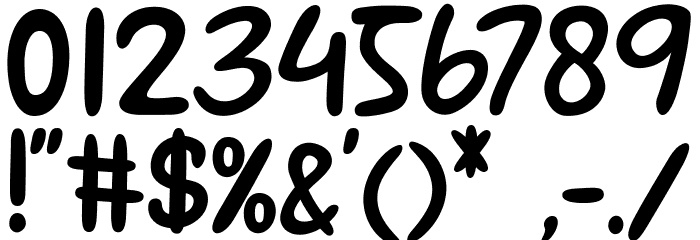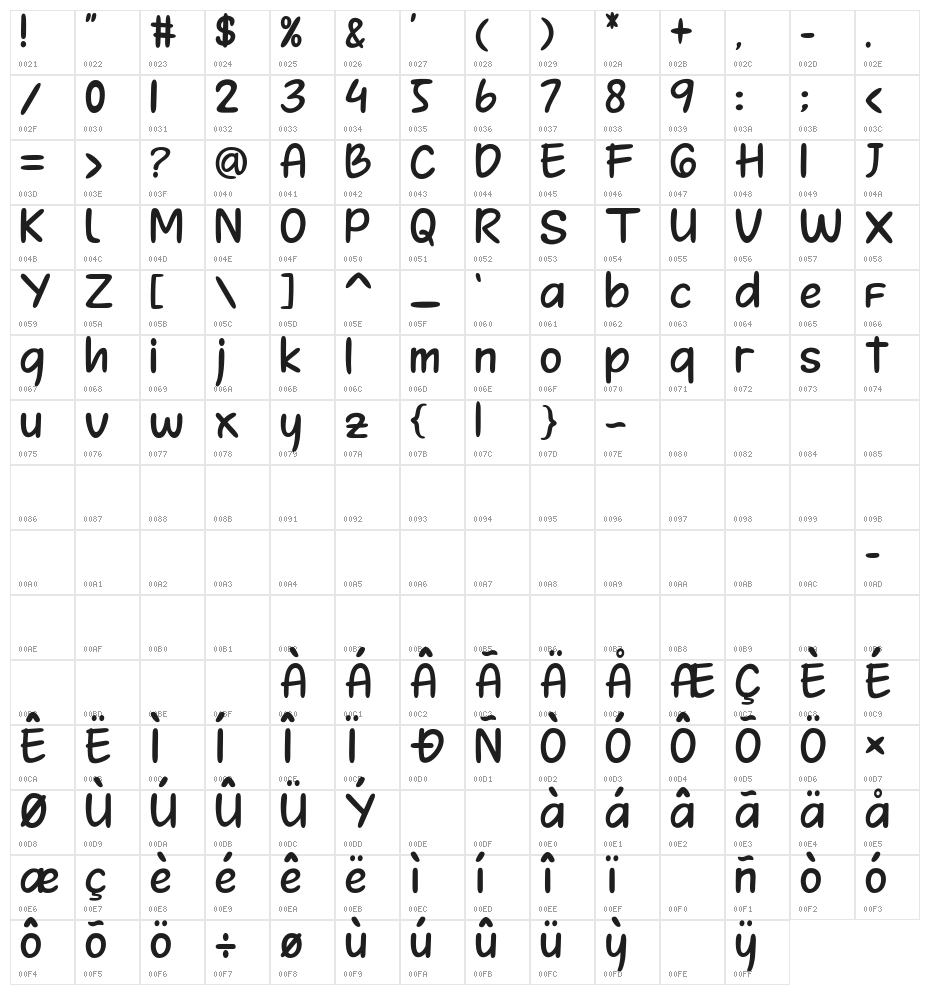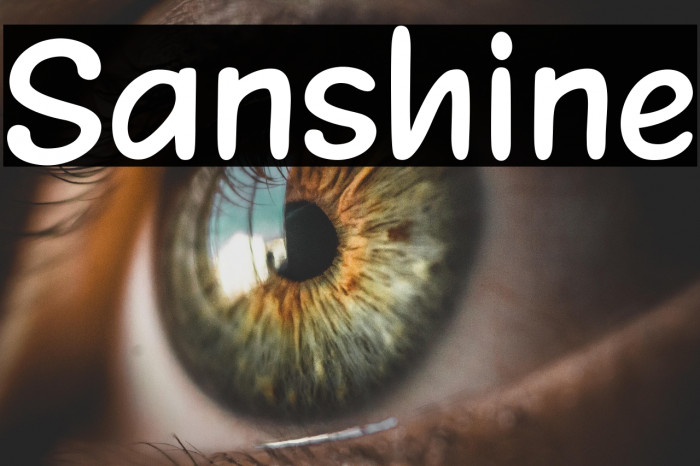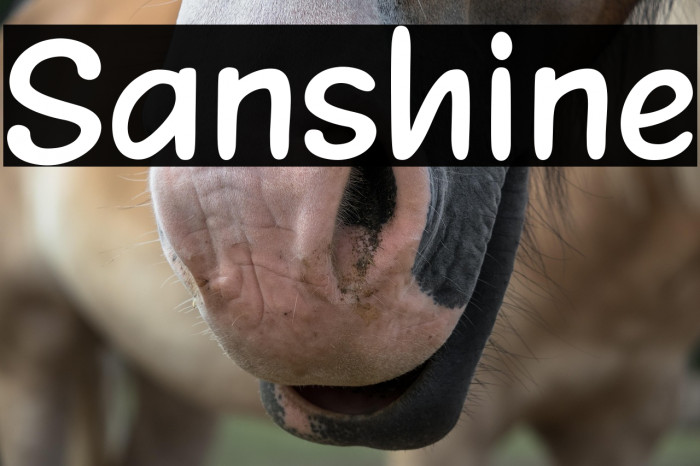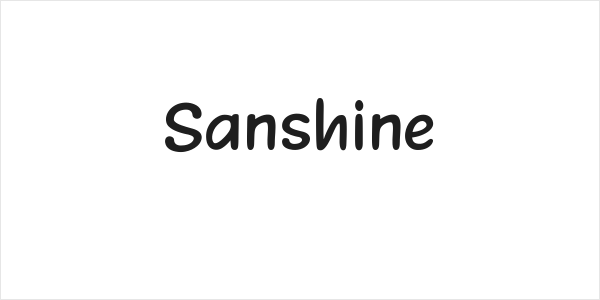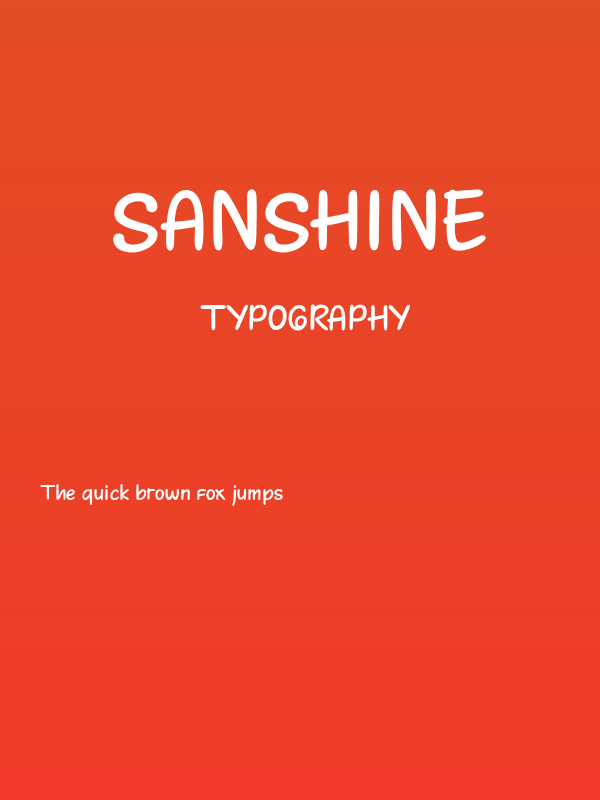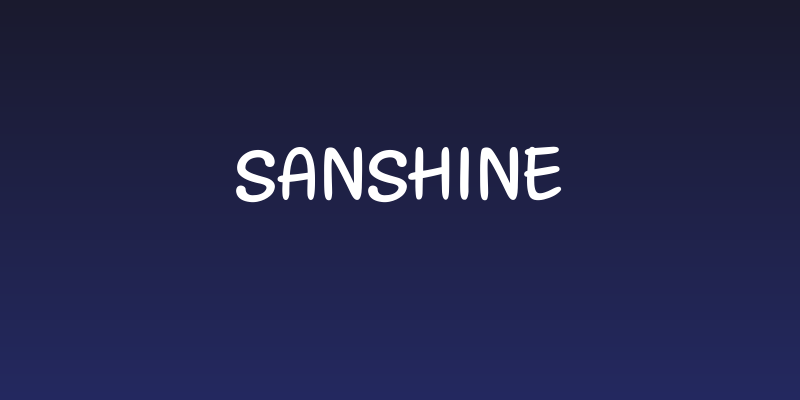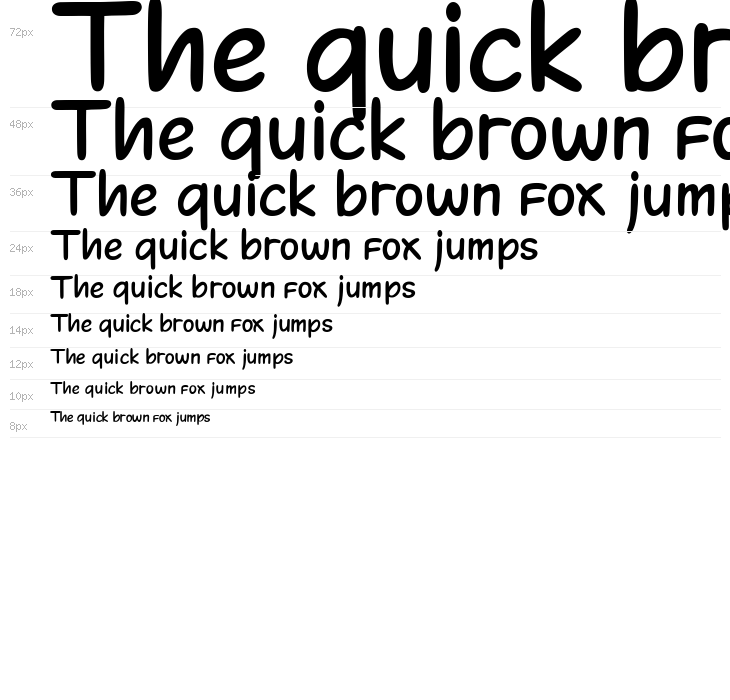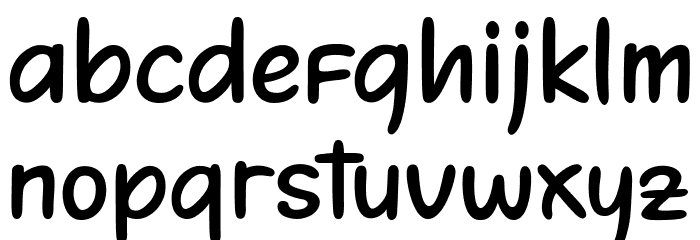
Sanshine Font
Sanshine Description
This playful and rounded font features a handwritten style that exudes a casual and friendly vibe. The characters are bold and slightly condensed, with smooth curves and consistent stroke widths that create a harmonious and approachable appearance. The uppercase and lowercase letters maintain a uniform height, enhancing readability while retaining a whimsical charm. Numbers and special characters are crafted with the same playful aesthetic, making this font versatile for various creative projects. Its informal style is perfect for designs that aim to convey warmth and approachability.
| Proposed Projects | Ideal for children's books, greeting cards, playful branding, and social media graphics. |